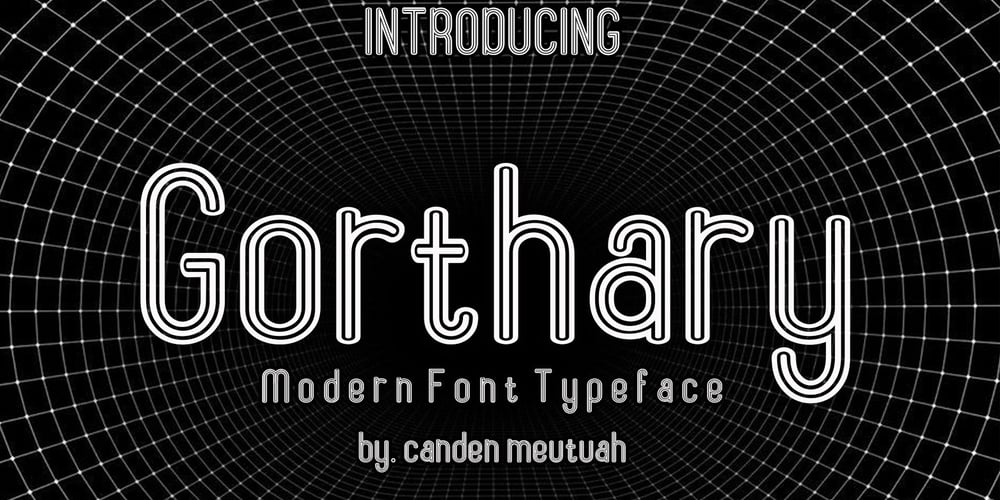
Gorthary
Gorthary font
Gorthary Font Family was designed by Canden Meutuah and published by Canden Meutuah. Gorthary contains 1 styles and family package options. This is a simple, minimalist and Modern font. It can be easily adapted to a very large range of projects, such as advertising, titles, blogs, logos, branding, invitations, business cards and more!So add it to your creative ideas and watch how it makes it stand out!